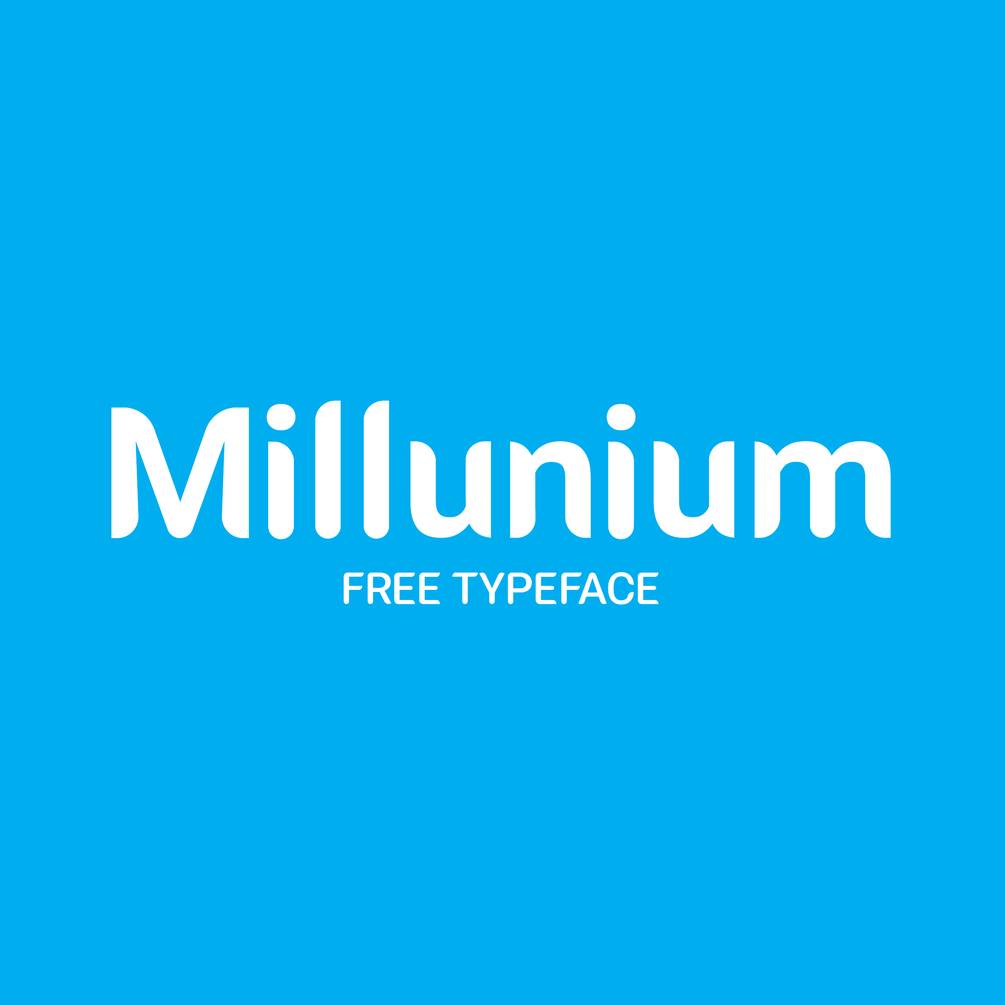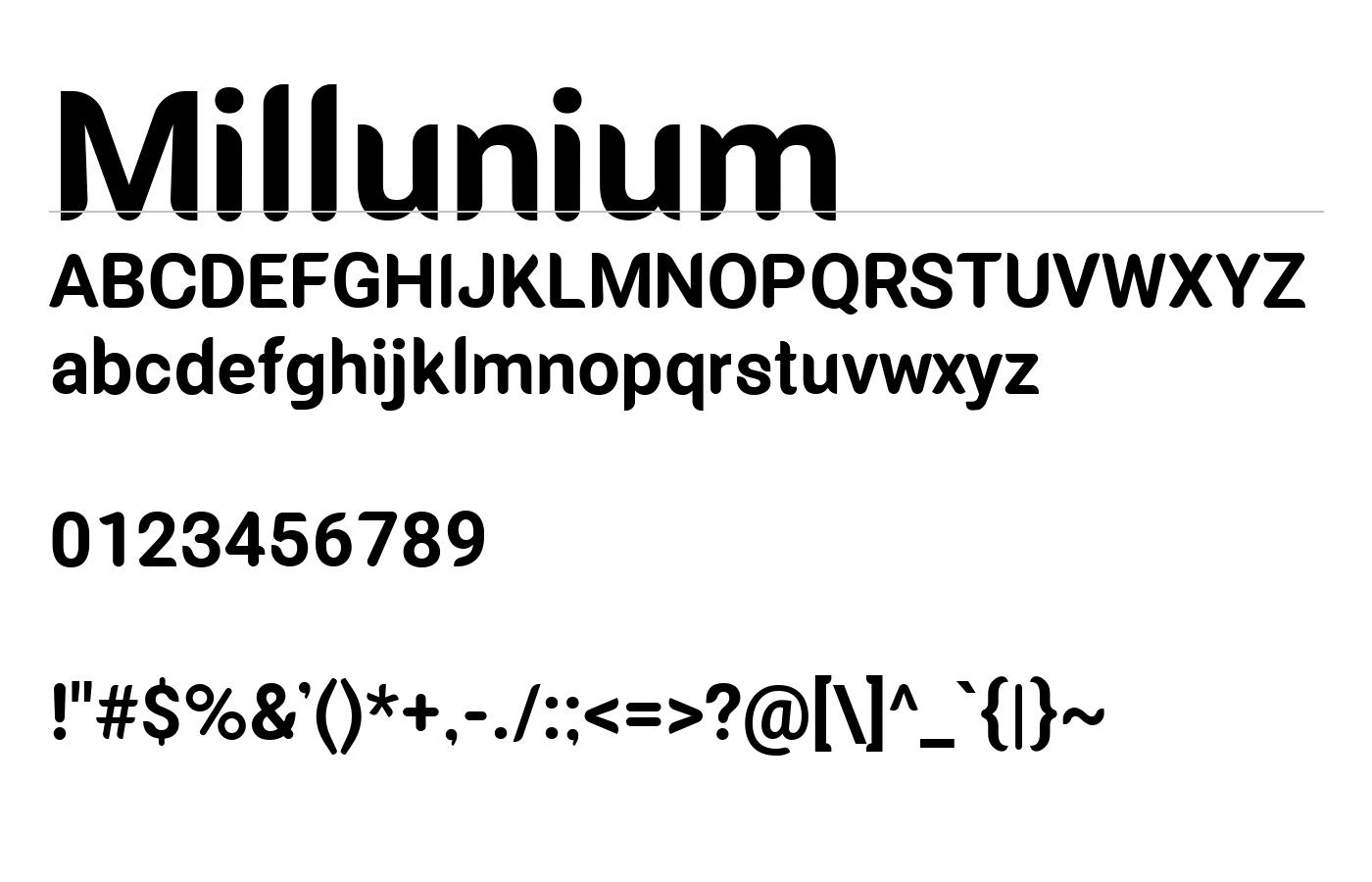
Millunium is a clean, rounded sans serif font characterized by its moderate weight and friendly, approachable letterforms. Its smooth curves and consistent stroke width create a modern and inviting feel, making it ideal for branding, editorial design, and user interfaces where clarity and warmth are essential. This font works well in headlines and body text alike due to its balanced proportions and clear readability.
Millunium Font
About Millunium Font